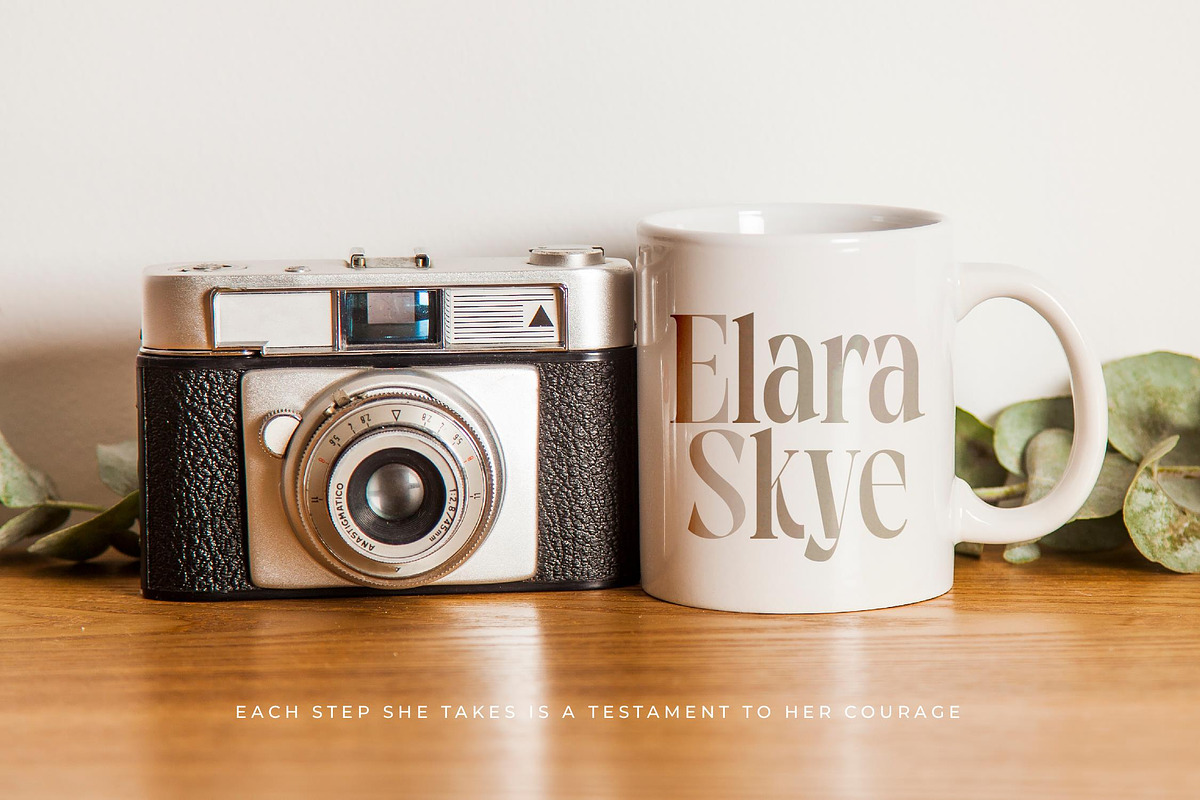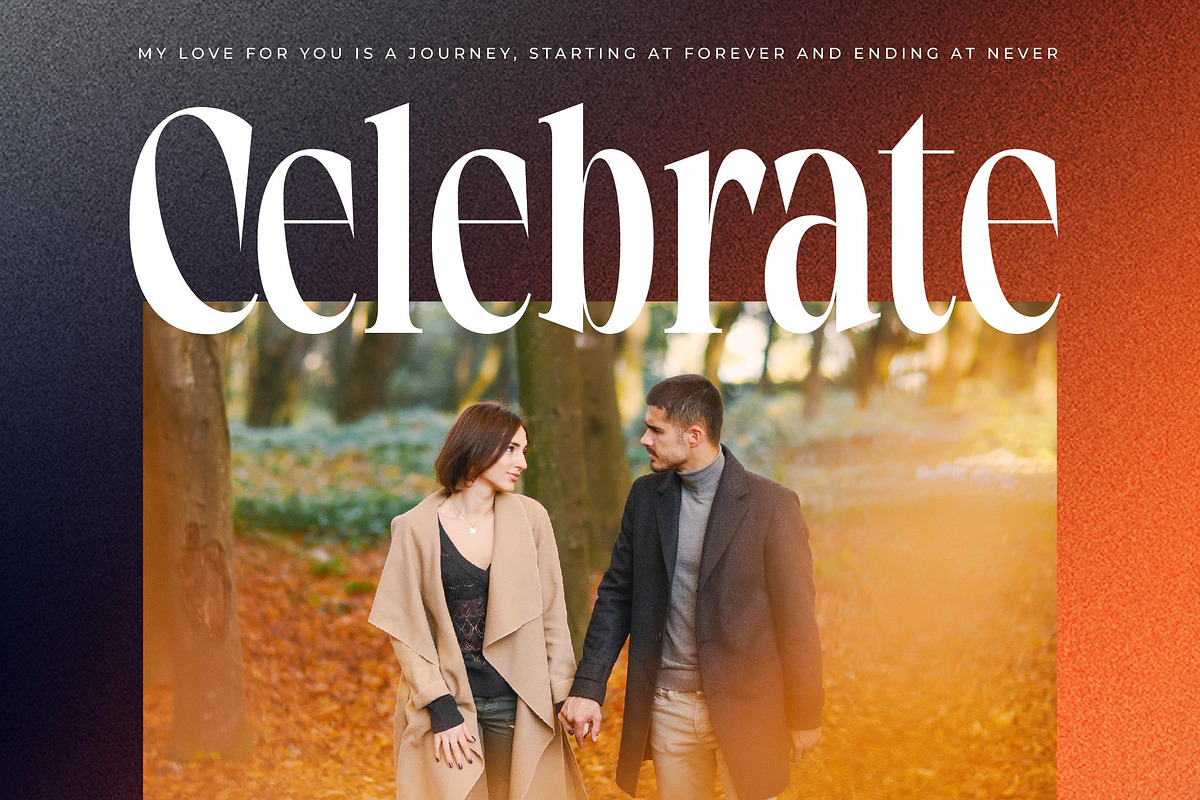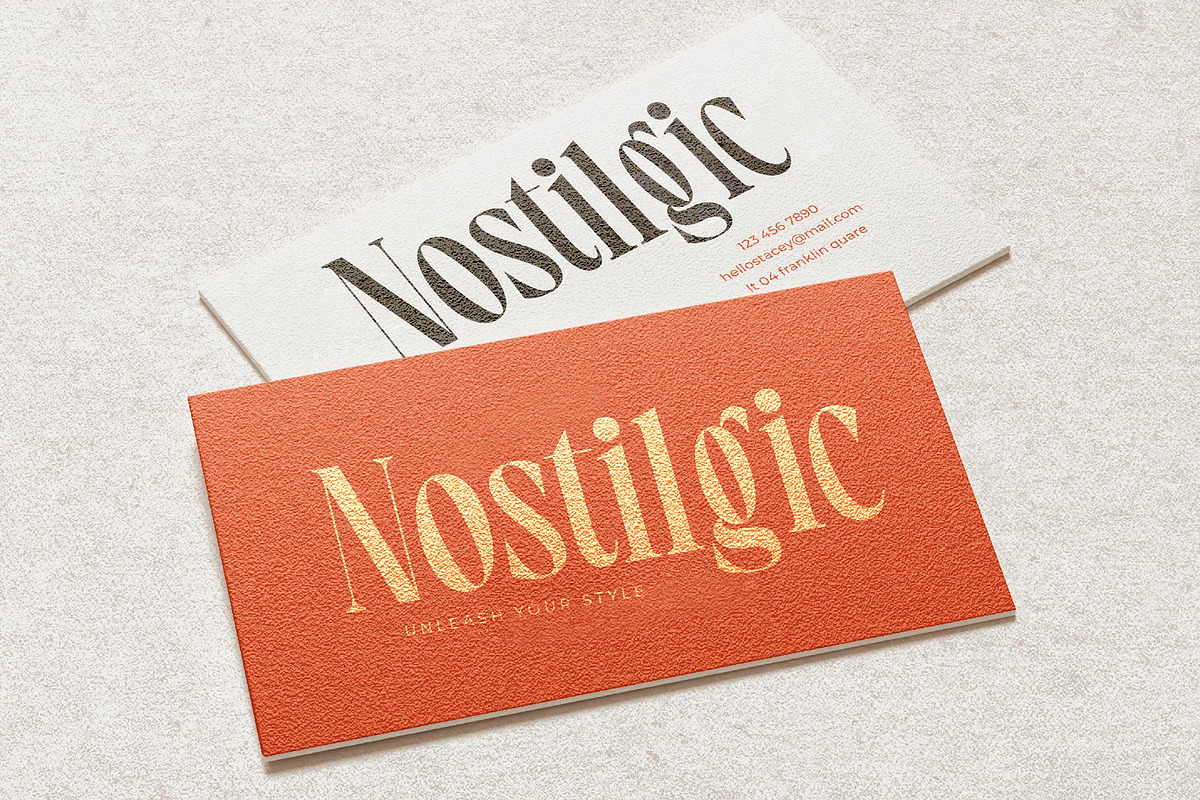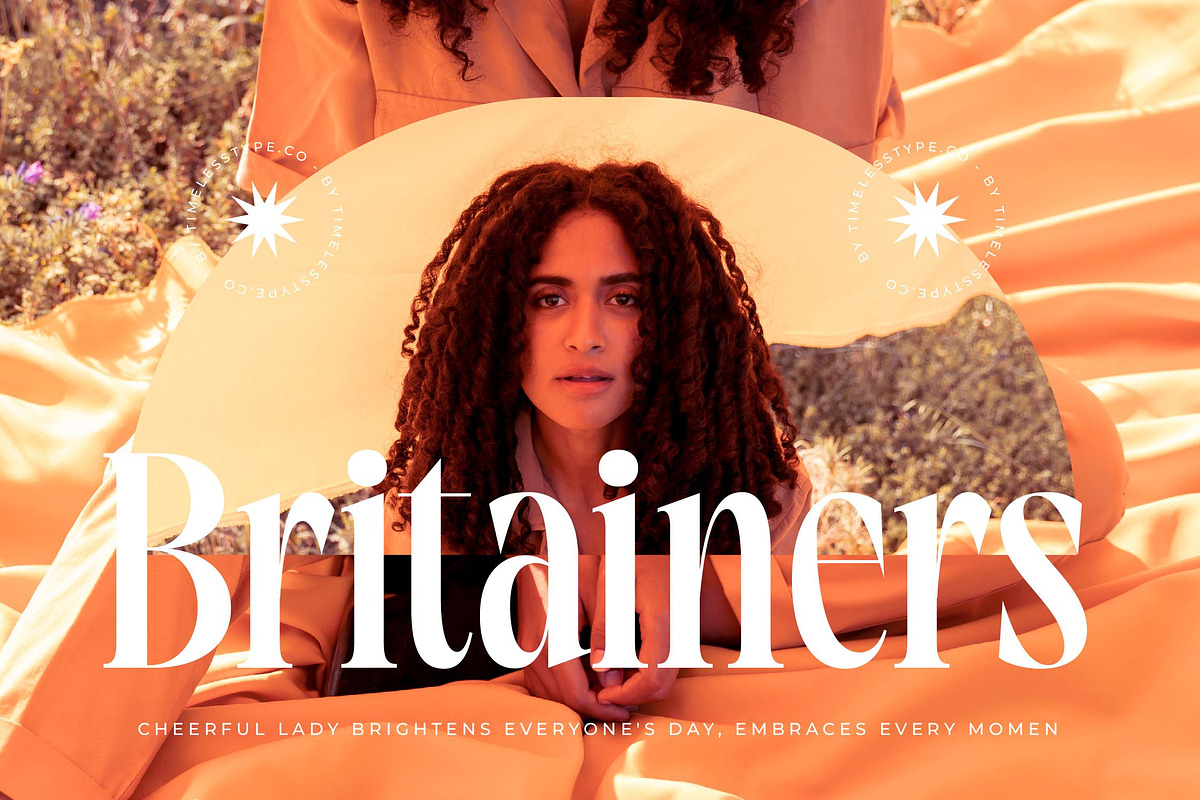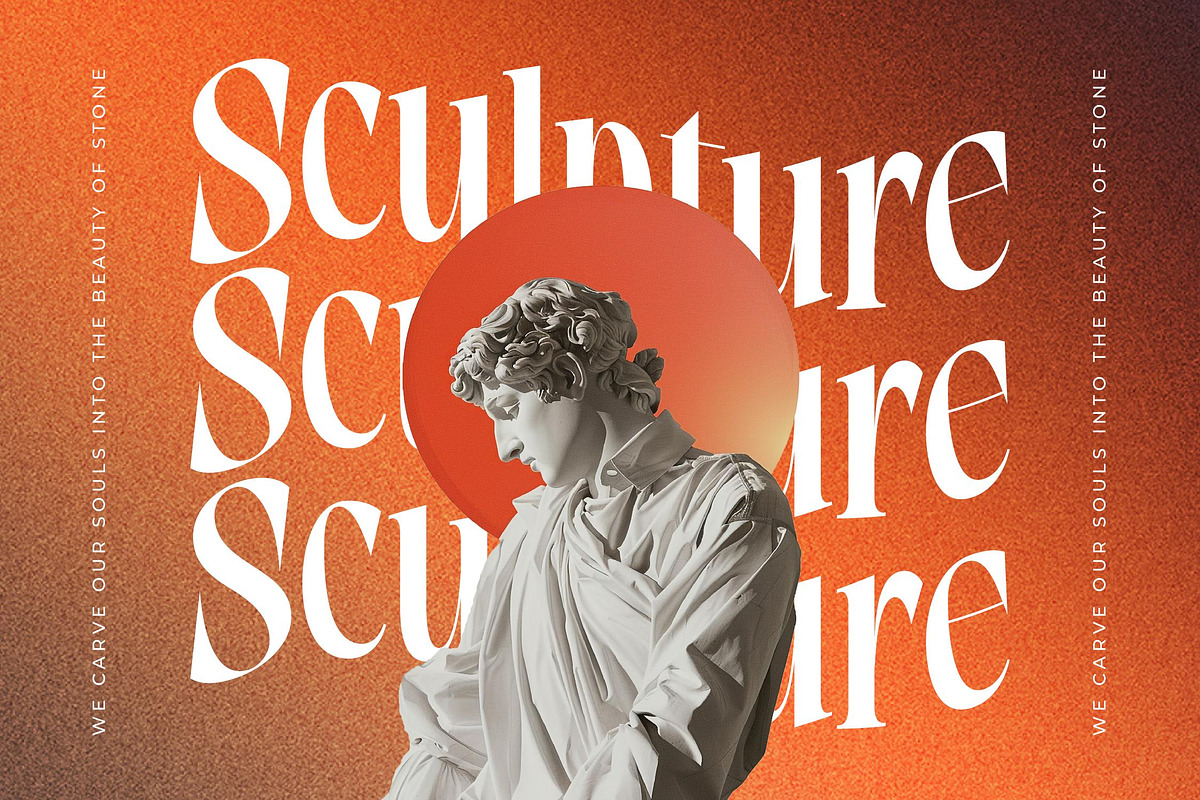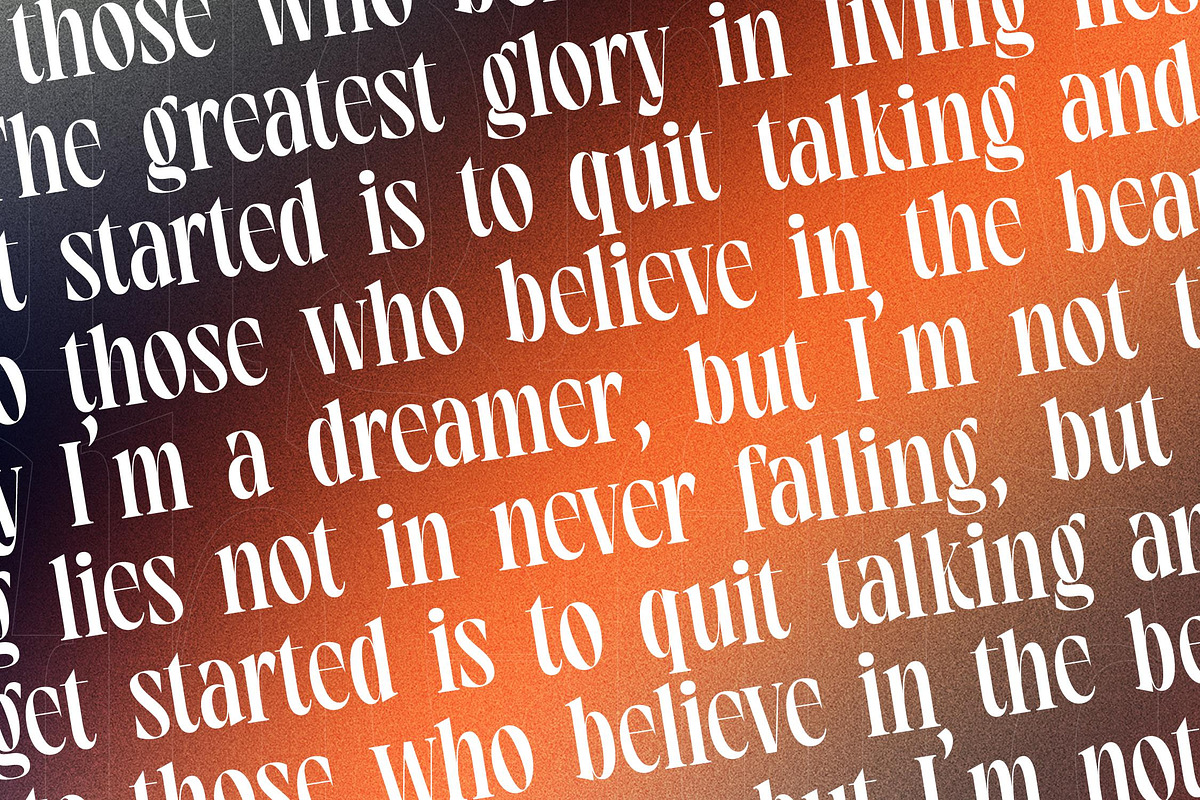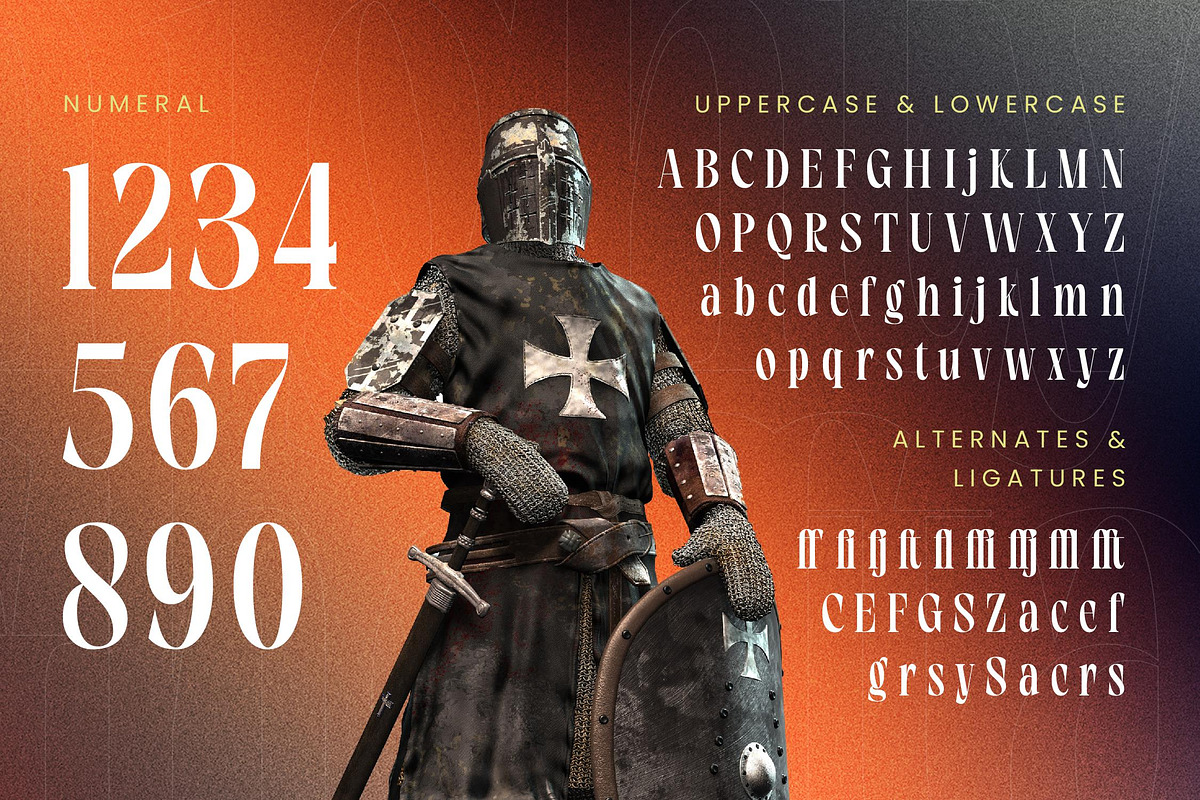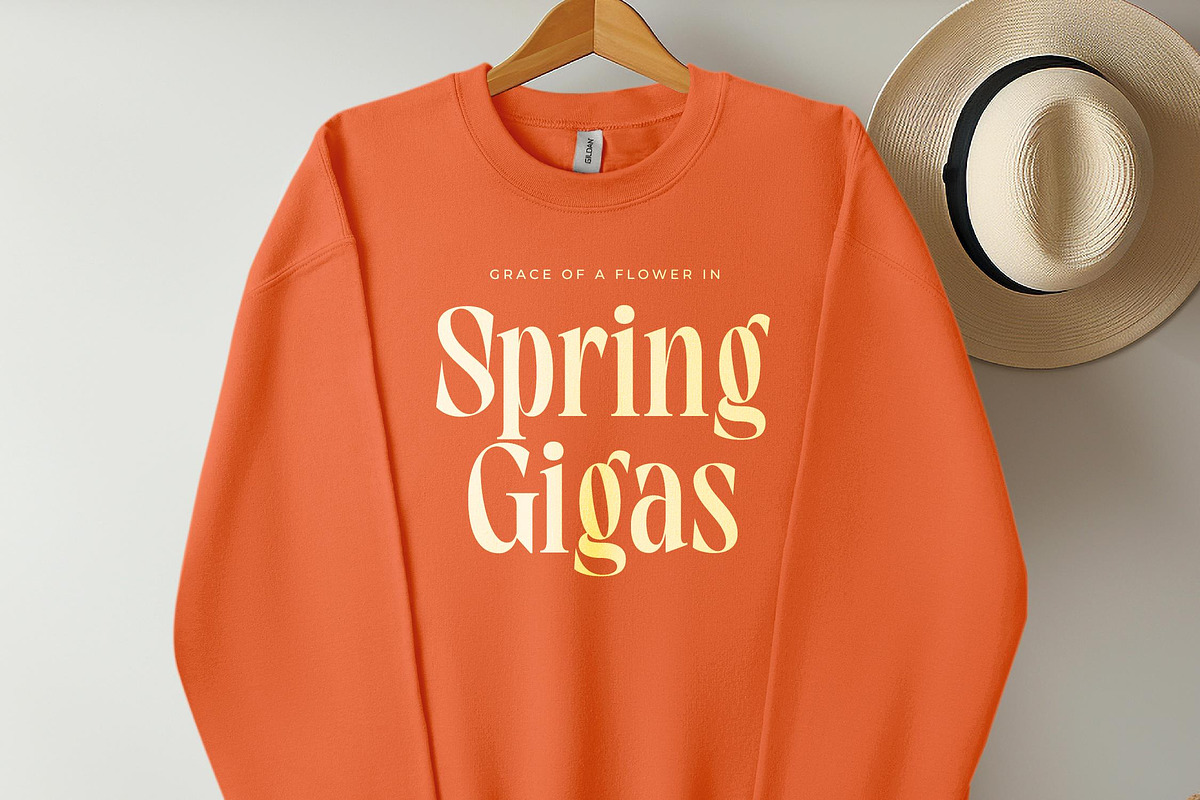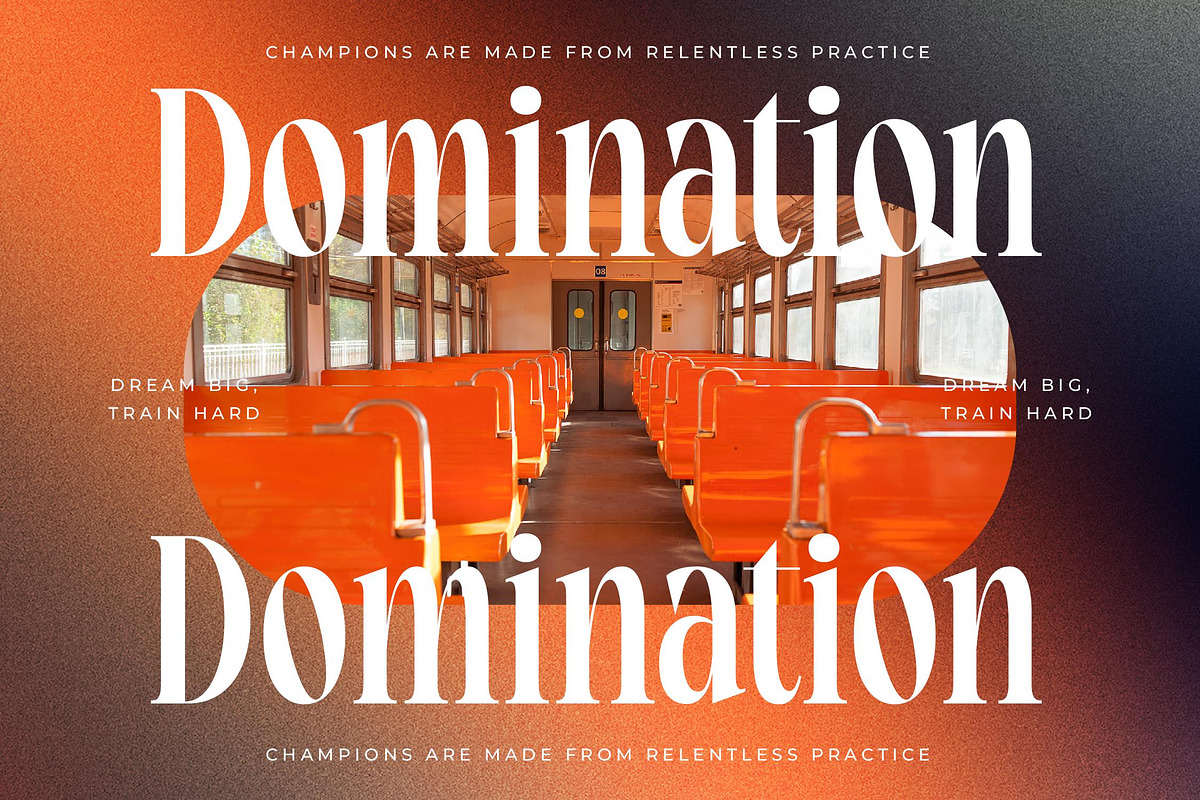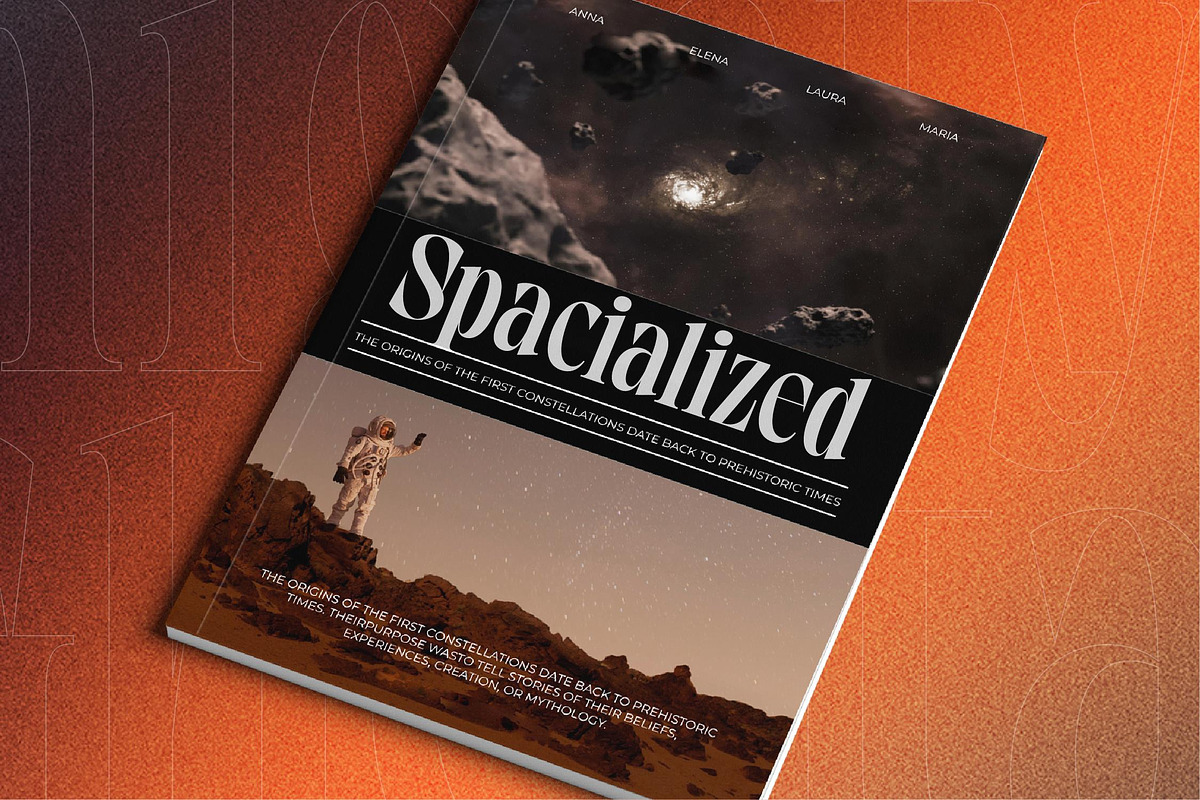
Knighty Gheffta Modern Serif Font
Step into a realm of sophisticated power and timeless grace with the undeniable allure of Knighty Gheffta. This typeface commands attention with its majestic posture and sharp, elegant details that evoke a sense of modern chivalry.
Inspired by the stoic strength of medieval knights and the refined curves of classical architecture, this font tells a story of heritage reimagined. Every stroke feels intentional, capturing a spirit of valor updated for the demands of the modern creative professional.
This modern serif display is a masterclass in luxury typography, offering a high-contrast serif look that is perfect for a premium editorial font. It provides a significant branding impact for those seeking a prestigious and authoritative aesthetic in their work.
Riding the wave of the modern serif trend, this typeface is a leader among editorial display fonts. It utilizes character-driven typography to speak to an audience that values detail, artistic integrity, and a unique visual voice.
Whether you are crafting a signature logo design or building a complete branding identity, this font excels in editorial work and high-end packaging. It is equally stunning for wedding invites or fashion lookbooks that require absolute elegance.
The professional package includes a variety of ligatures and creative alternates to provide endless possibilities. With decorative swashes, full multilingual capability, and a wide range of international characters, it ensures your message resonates globally.
- Ligature 9 Alternate 20